Up Font
The Up font captures the joyful and adventurous essence of Pixar’s animated masterpiece Up. The movie’s title typography is instantly recognizable—bold, rounded, and full of life—perfectly matching the film’s uplifting tone and emotional storytelling. Its friendly curves and soft weight create a sense of warmth and optimism, embodying the spirit of discovery that defines the movie’s journey.
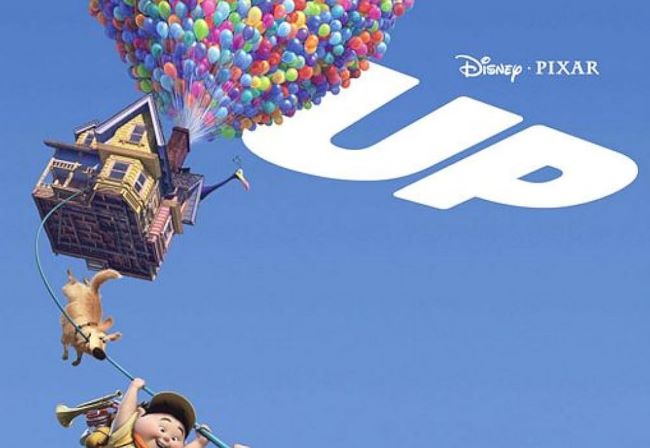
There is no official Up font publicly available, but its look can be recreated using playful sans-serif typefaces with rounded corners and thick strokes. Fonts like Majoris or similar cartoon-style lettering achieve the same approachable aesthetic—ideal for cheerful branding, children’s books, or animated-inspired poster designs.